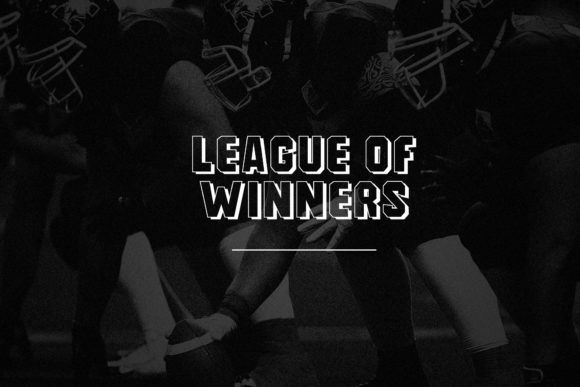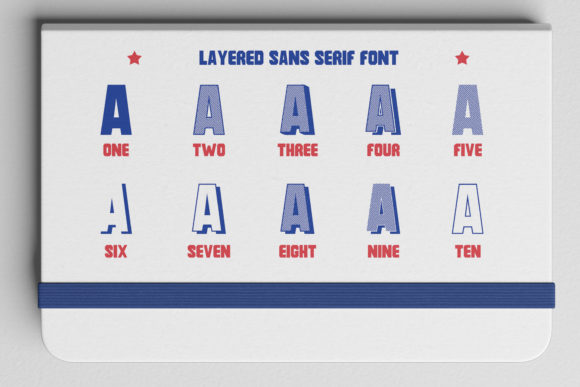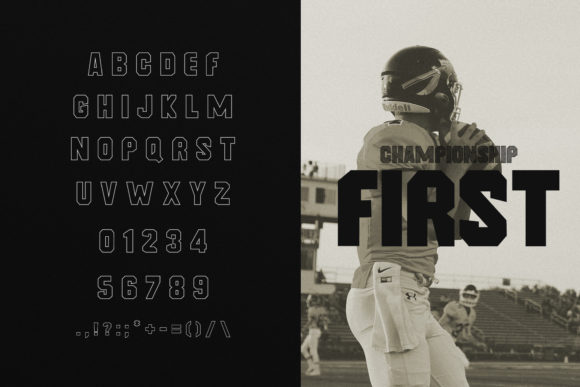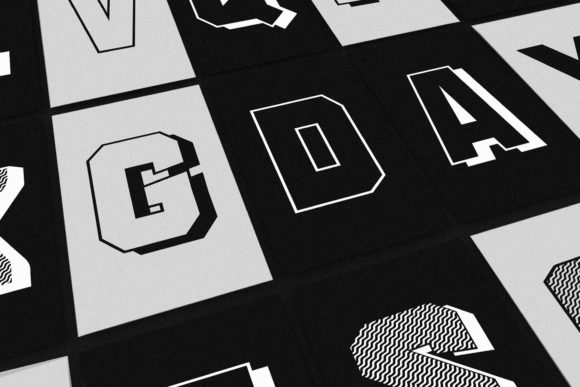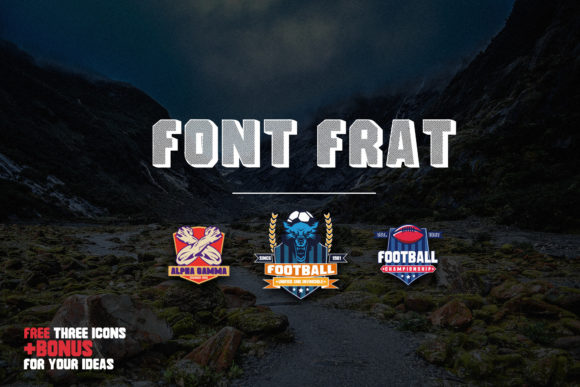
Frat Font: Elevate Your Designs with a Cool, Bold, and Thick Lettered Display Font
In the world of typography, fonts play a crucial role in making or breaking a design. A font can either enhance or detract from the overall aesthetic of a project. For designers and crafters looking to add a touch of boldness and thickness to their creations, Frat Font is an excellent choice. This cool, bold, and thick lettered display font is a wonderful asset to any font library, capable of elevating any project to new heights.
What is Frat Font?
Frat Font is a display font designed to make a statement. Its bold and thick lettering makes it perfect for headlines, titles, and any other text that needs to grab attention. The font’s unique design ensures that it stands out from the crowd, adding a touch of personality to any project. Whether you’re working on a logo, poster, or social media graphic, Frat Font is sure to make your design pop.
Key Features of Frat Font
- Bold and Thick Lettering: Frat Font’s bold and thick lettering makes it perfect for display purposes. Its chunky design ensures that your text stands out, even from a distance.
- Cool and Modern Aesthetic: The font’s modern design gives it a cool and edgy feel, making it perfect for projects that require a bit of attitude.
- Versatile: Despite its bold design, Frat Font is surprisingly versatile. It can be used for a wide range of projects, from logos and posters to social media graphics and more.
- Easy to Read: Despite its bold design, Frat Font is easy to read, even in smaller sizes. This makes it perfect for projects where legibility is important.
Who Can Benefit from Frat Font?
Frat Font is a valuable resource for a wide range of designers and crafters, including:
- Graphic Designers: Graphic designers can use Frat Font to add a bold and modern touch to their designs. Its versatility makes it perfect for a wide range of projects.
- Logotype Designers: Logotype designers can use Frat Font to create bold and memorable logos that stand out from the crowd.
- Social Media Managers: Social media managers can use Frat Font to create eye-catching social media graphics that grab attention.
- Crafters: Crafters can use Frat Font to add a personal touch to their projects, from handmade cards to DIY signs.
How to Use Frat Font Effectively
To get the most out of Frat Font, here are a few tips:
- Use it for Headlines and Titles: Frat Font is perfect for headlines and titles, where its bold design can really make an impact.
- Pair it with Other Fonts: Frat Font can be paired with other fonts to create a unique and visually appealing design.
- Experiment with Colors: Frat Font looks great in a wide range of colors, so don’t be afraid to experiment and find the perfect hue for your project.
Frat Font is a cool, bold, and thick lettered display font that’s perfect for designers and crafters looking to add a touch of personality to their projects. Its versatility, legibility, and modern aesthetic make it a valuable resource for anyone looking to elevate their designs. Whether you’re working on a logo, poster, or social media graphic, Frat Font is sure to make your design stand out.